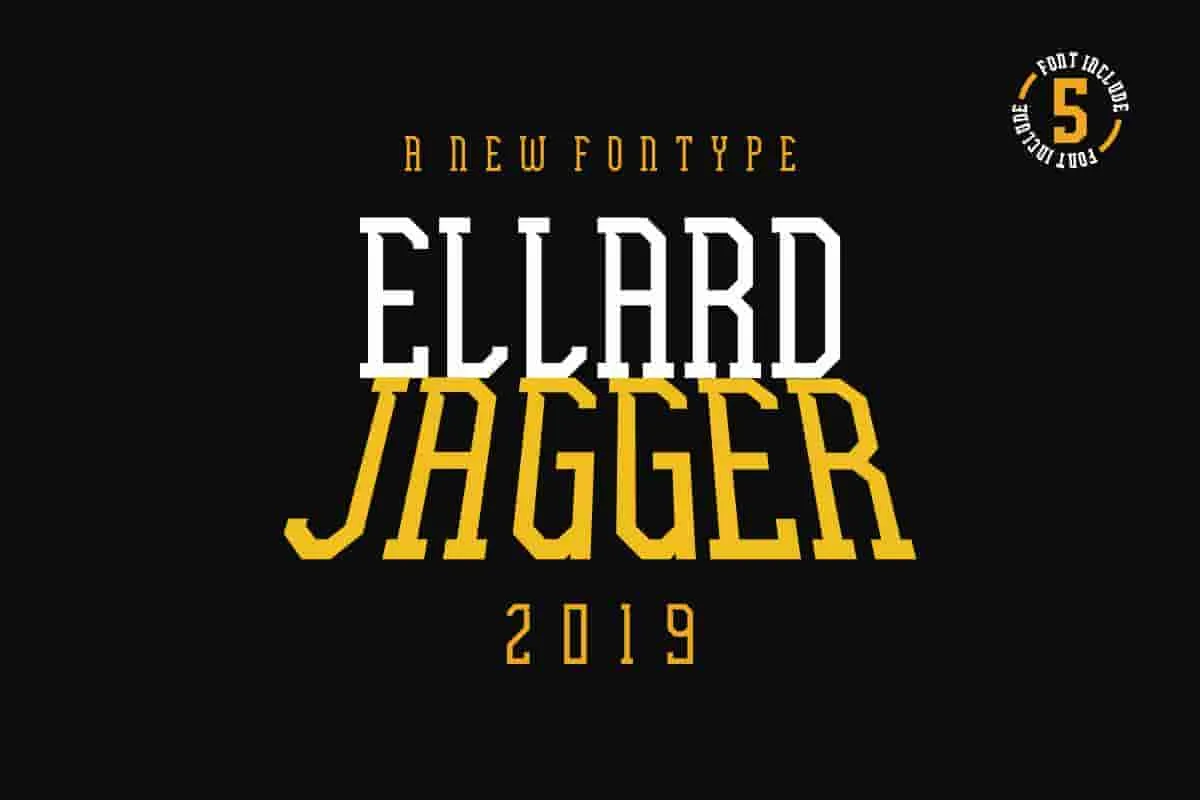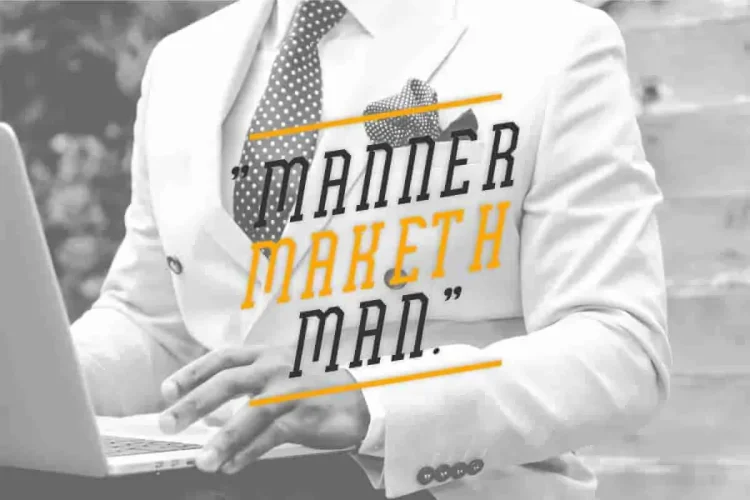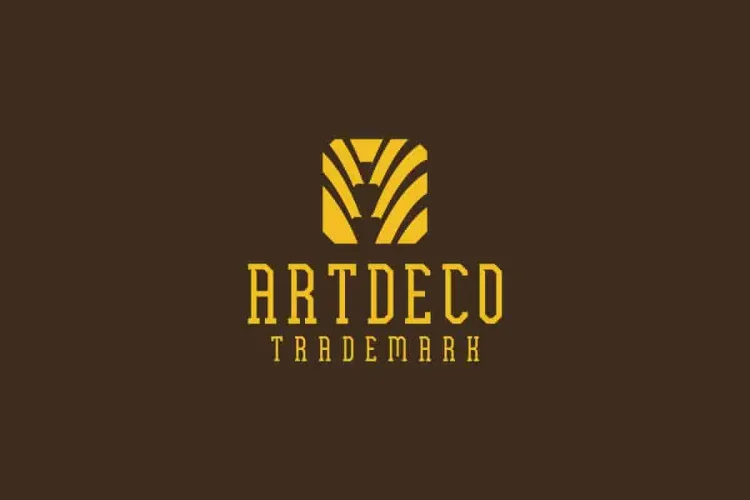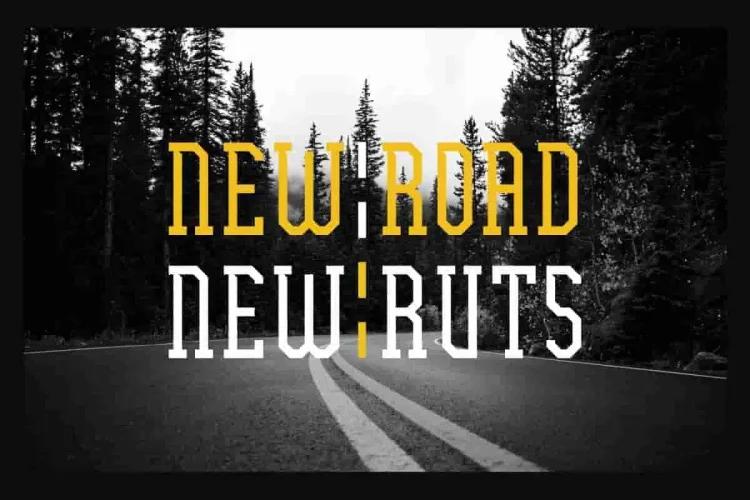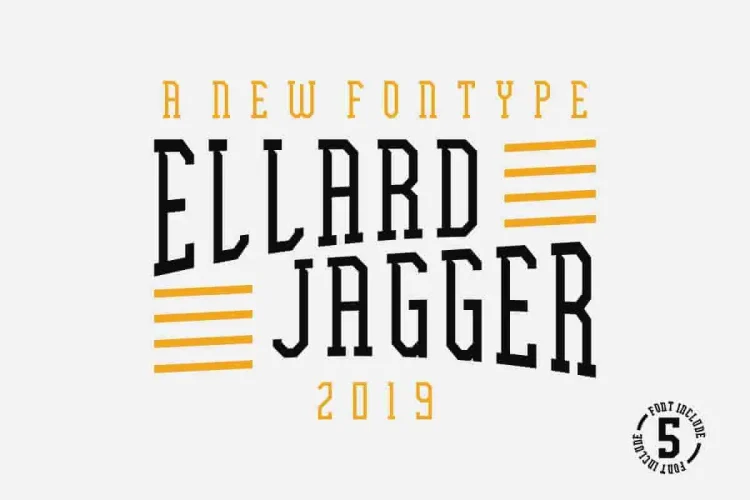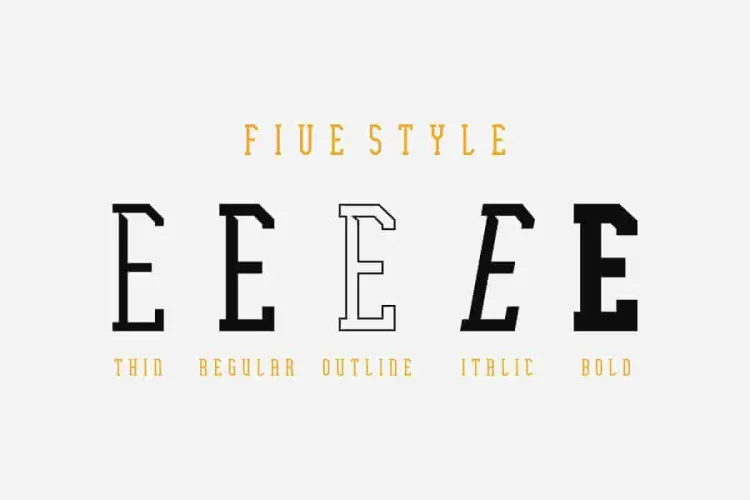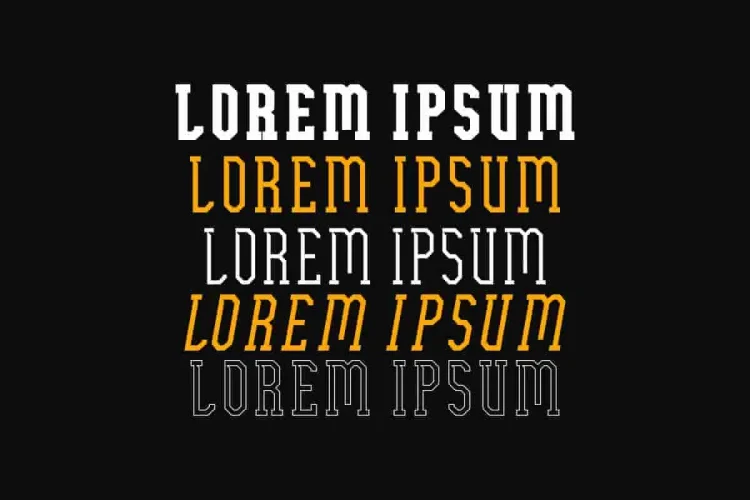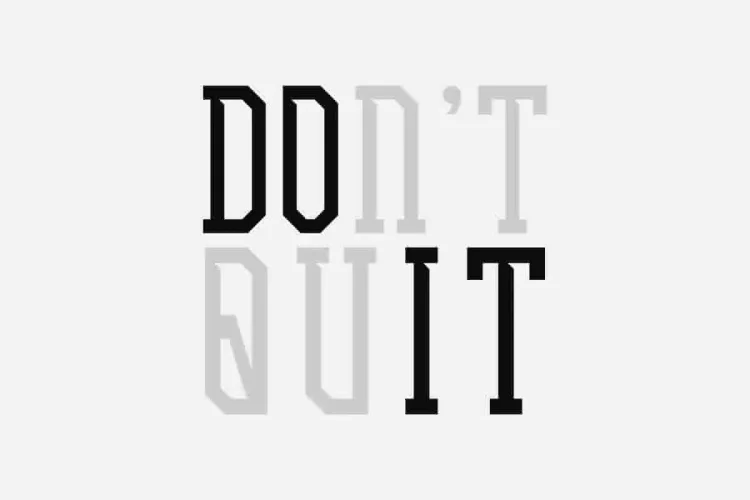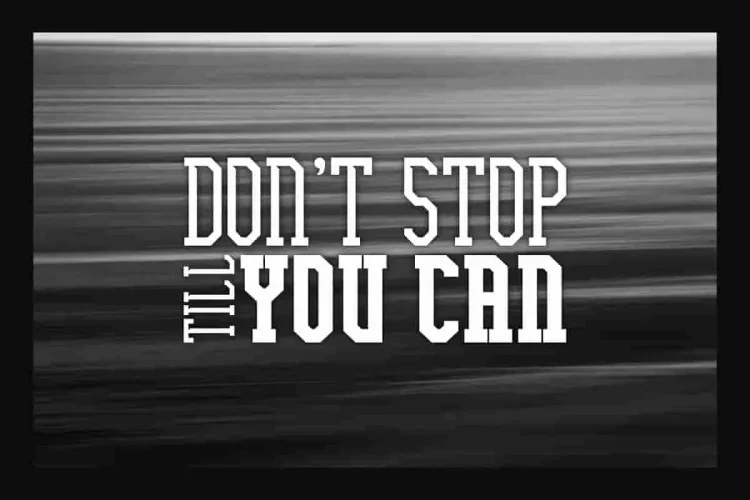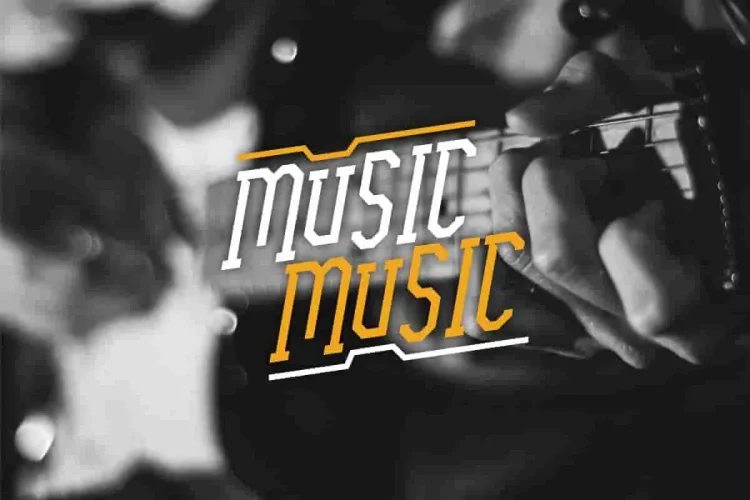
EllardJagger Retro Sans Serif With 5 Fonts
Introducing EllardJagger – A Bold Fusion of Retro Charm and Modern Versatility!
Looking for a font that brings powerful personality to your design while staying clean and readable? Say hello to EllardJagger, a stunning sans-serif font.
🔥EllardJagger comes with FIVE styles built to command attention:
• Bold: A strong, confident look ideal for headlines, posters, and impactful branding. Perfect for making a statement.
• Italic: Brings a stylish slant to your design—great for editorial layouts, taglines, and modern display work.
• Light: Minimal and clean, best suited for elegant branding, stationery, or high-end product design.
• Outline: Adds a retro edge and layered typography effect—works beautifully for signage, apparel, or logos with character.
• Demo: A sample style to preview the font’s unique tone—perfect to test in your layout before full use.
With these five variations, EllardJagger adapts seamlessly to a wide range of industries – from construction, real estate, and legal services to cafés, boutique brands, and creative agencies. And Great for branding, logo, stationery, business card, signage, flyer, brochure etc.
😎Why designers love EllardJagger:
• Versatile Display Power: Works beautifully in signage, branding, business cards, flyers, and brochures.
• Retro-Modern Aesthetic: Combines vintage flair with clean sans-serif structure – bold yet approachable.
Whether you’re building a brand or designing standout visuals, EllardJagger adds confident, retro-inspired energy to any project.